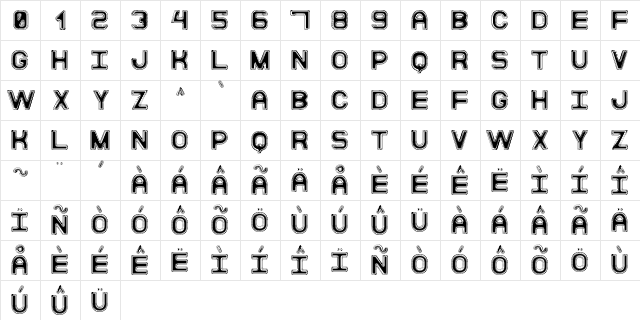
Moderna Disco St Regular
Design Context for Moderna Disco St Typeface
Moderna Disco St is a composed and adaptable typeface that performs quietly and consistently across a wide range of design contexts.
Pro Tip: Use Moderna Disco St in both headline and body roles to test its range before committing to a single application.